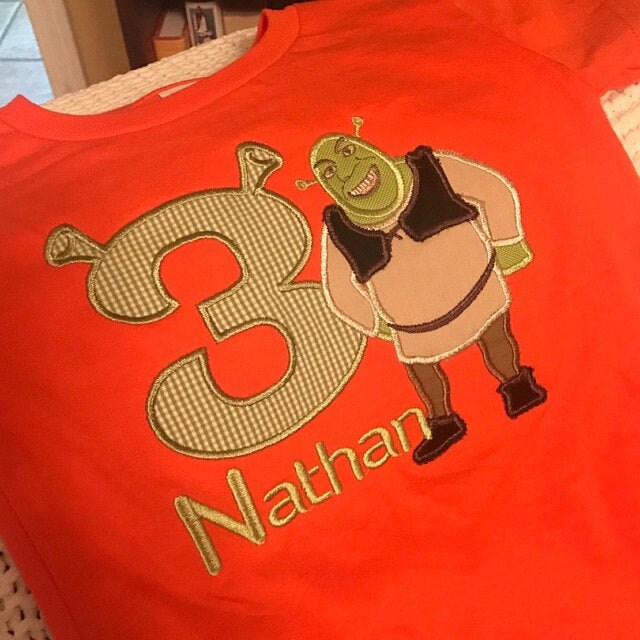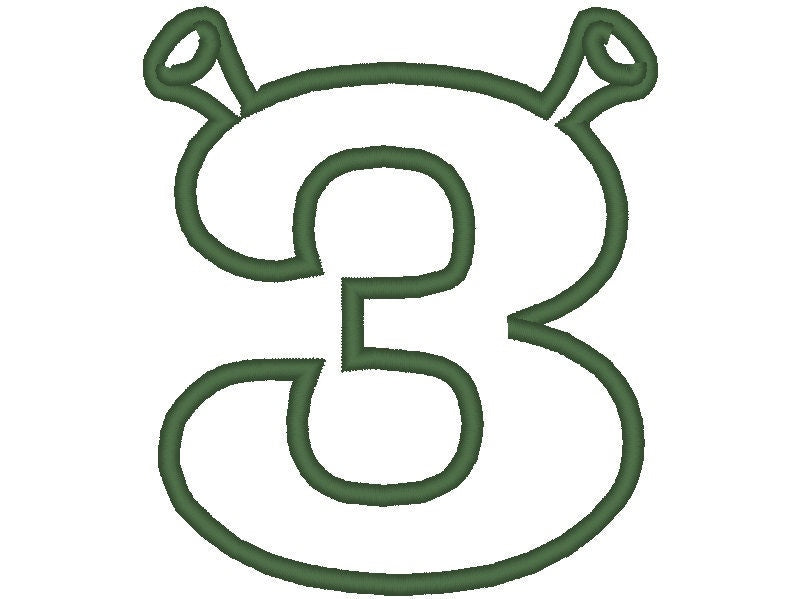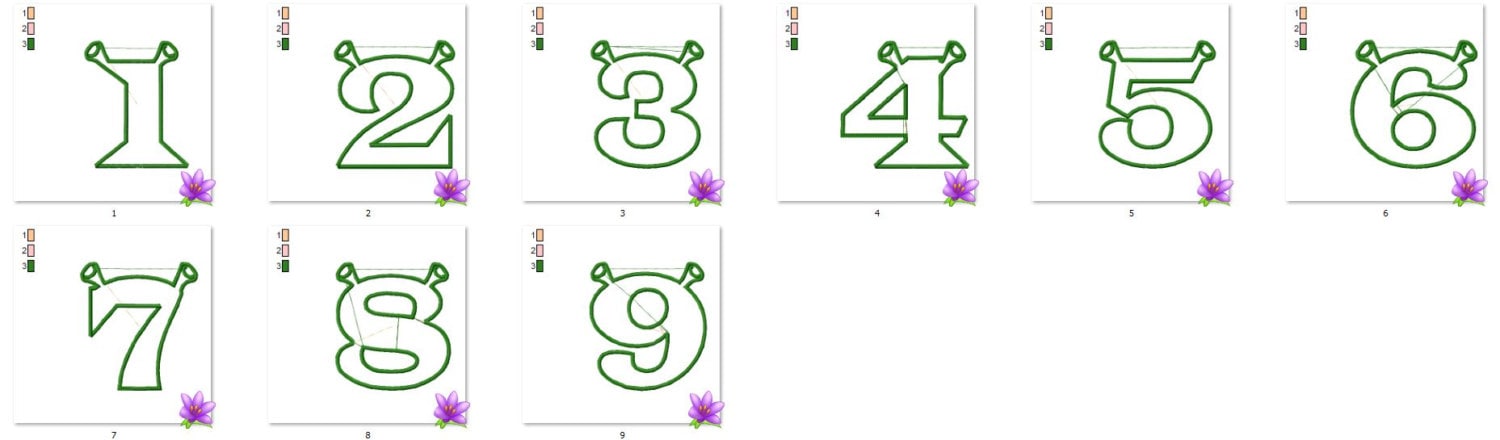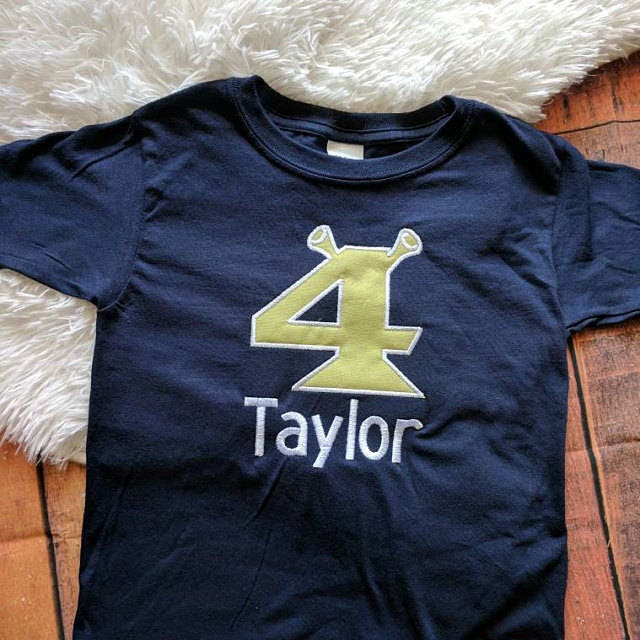
Cute Ogre Ears Birthday Numbers
Cute birthday numbers with little ogre ears, for kids' birthday shirts and ogre-themed parties.
• Birthday numbers 1 to 9 with ogre ears